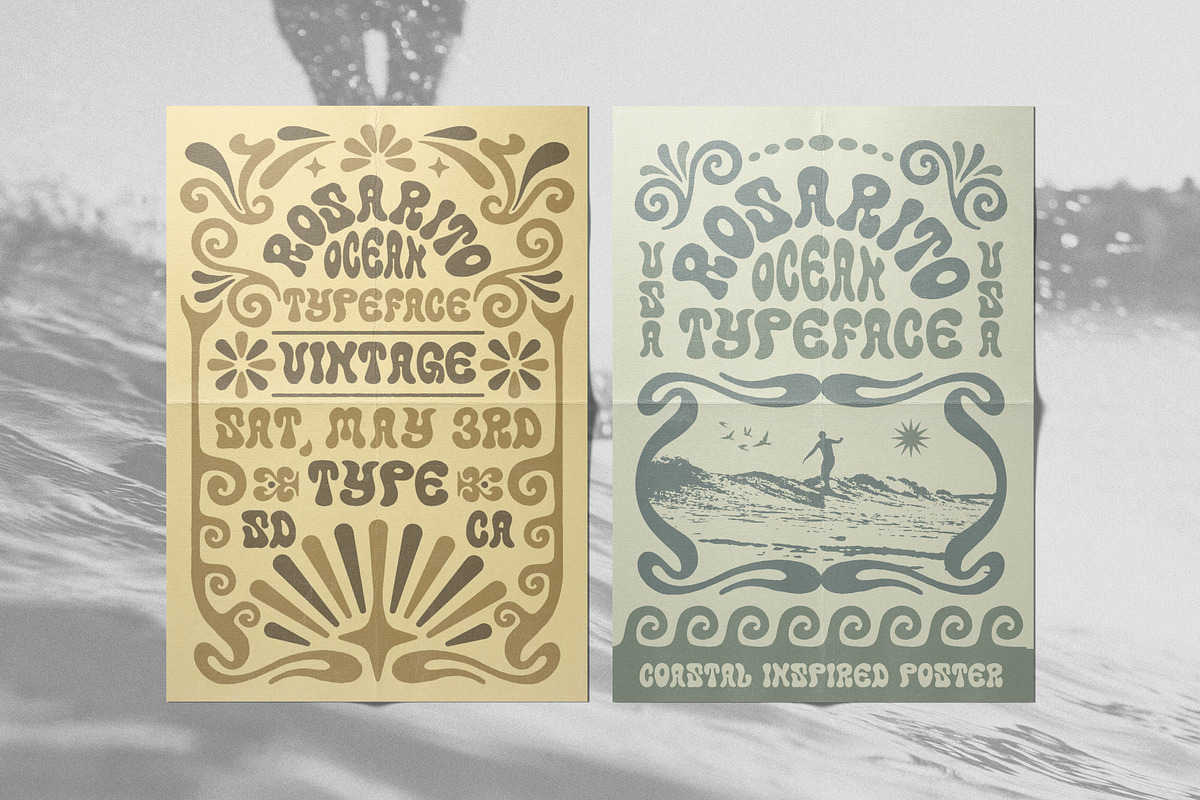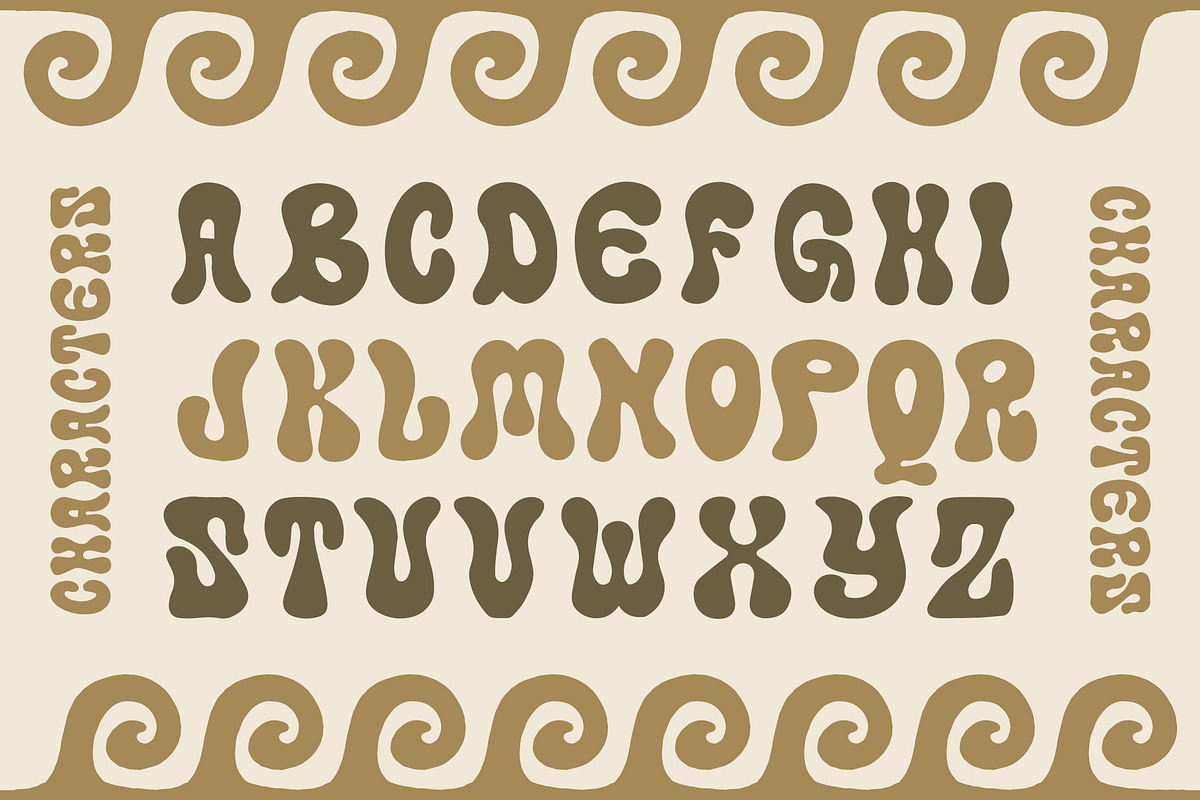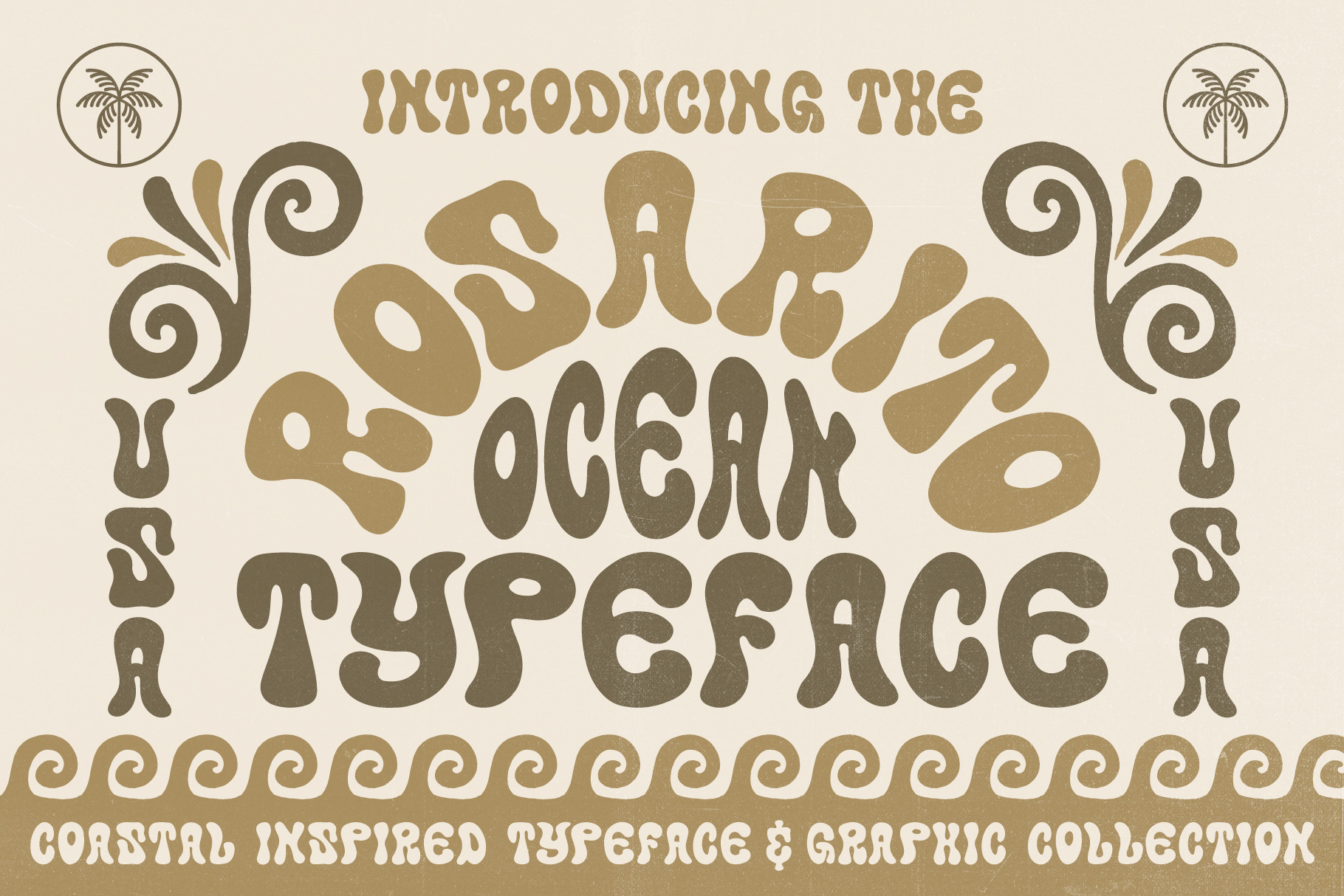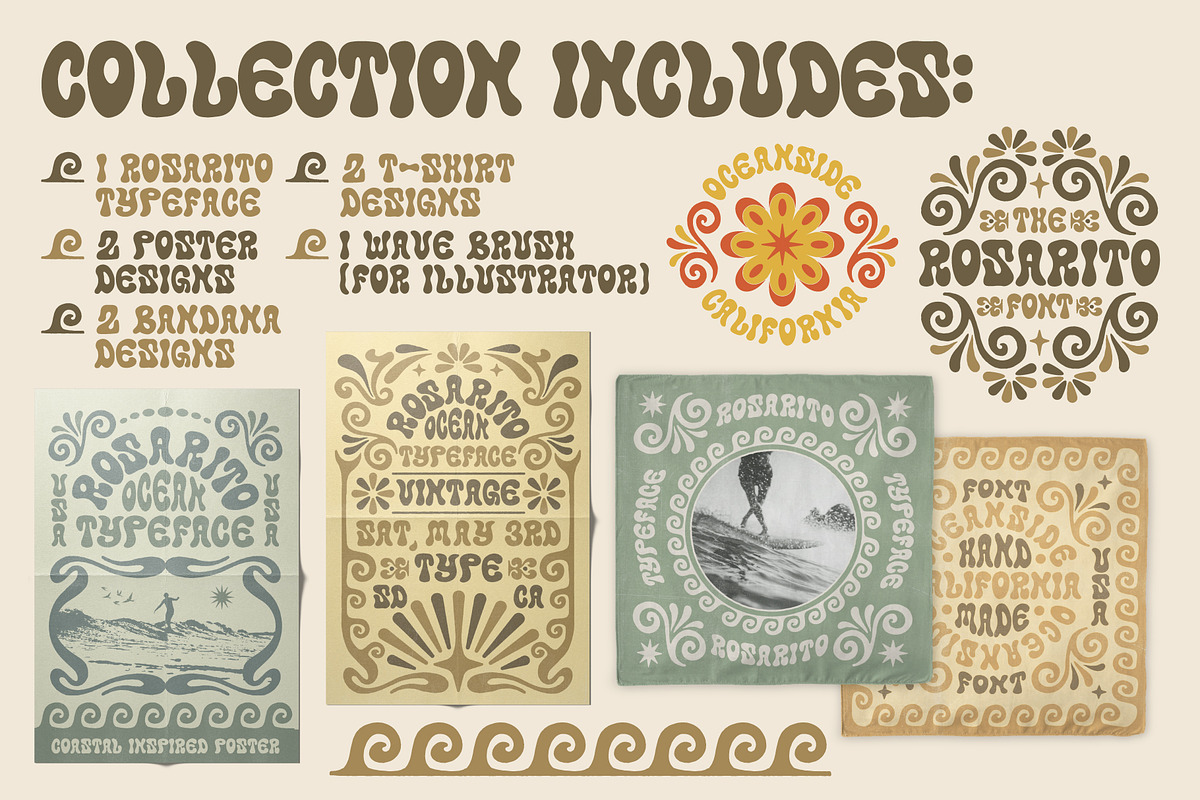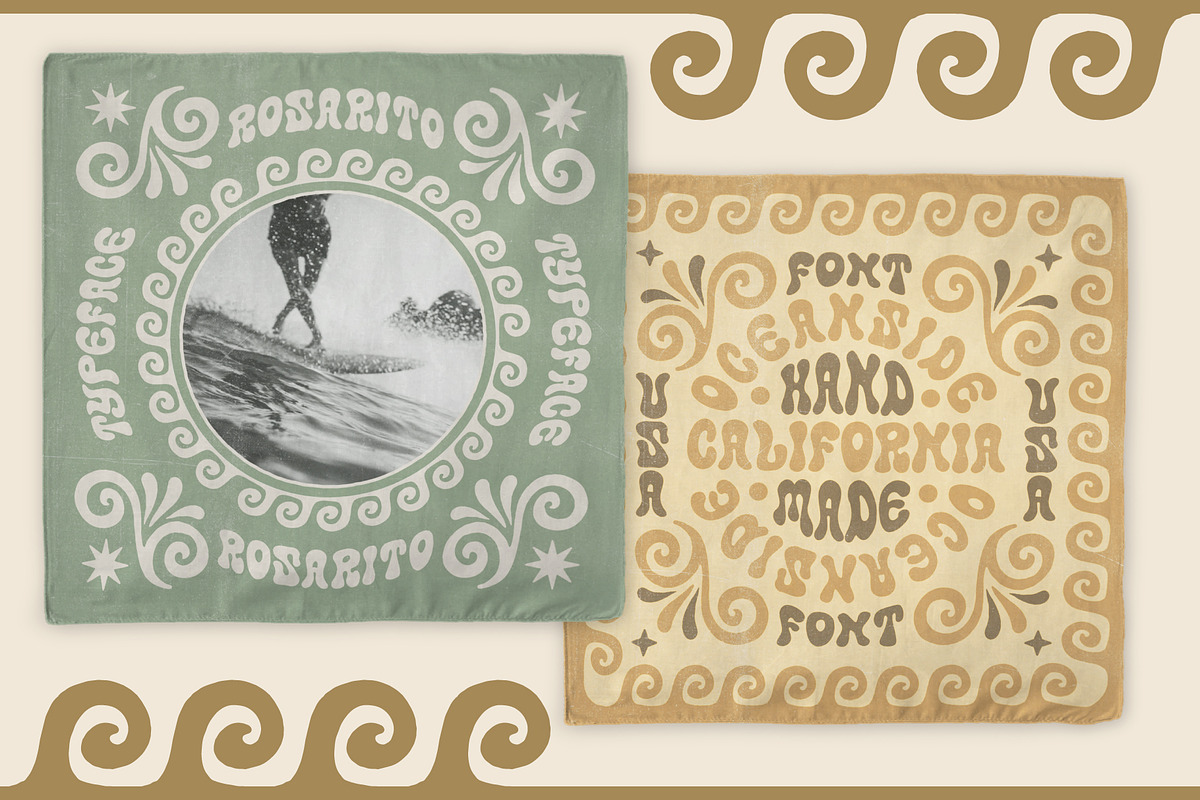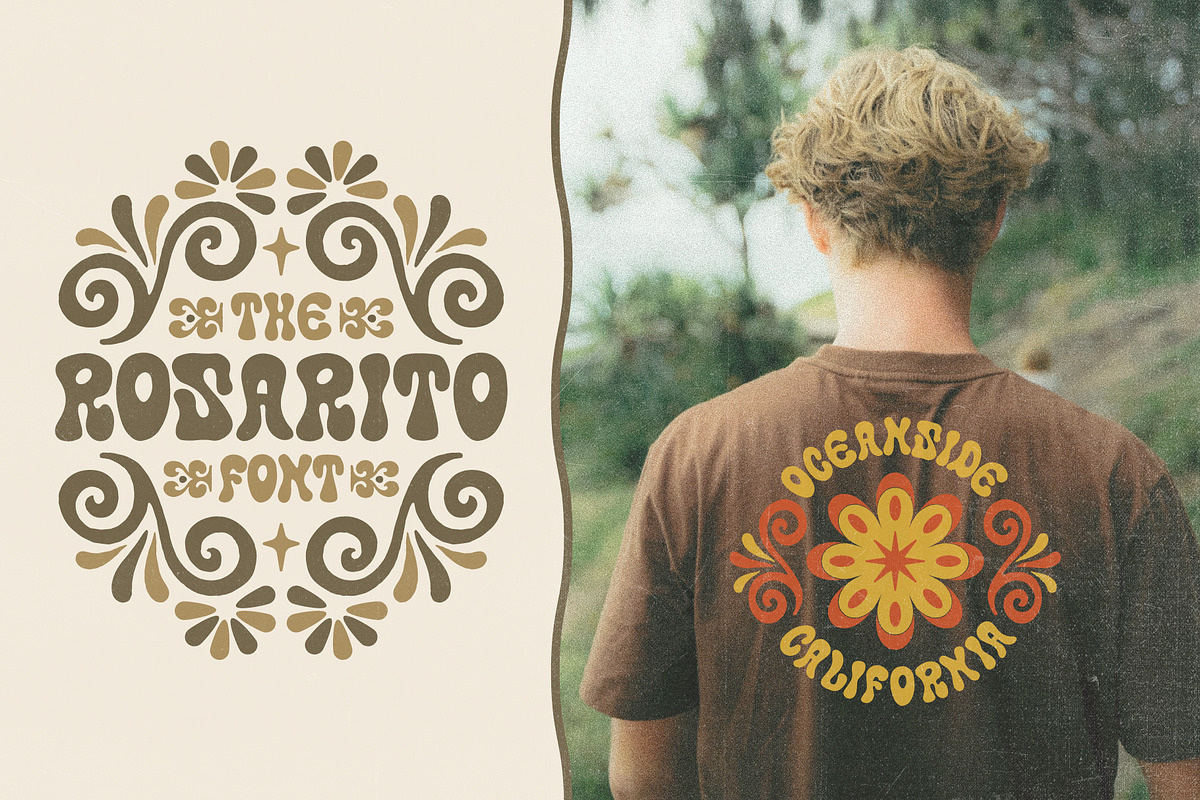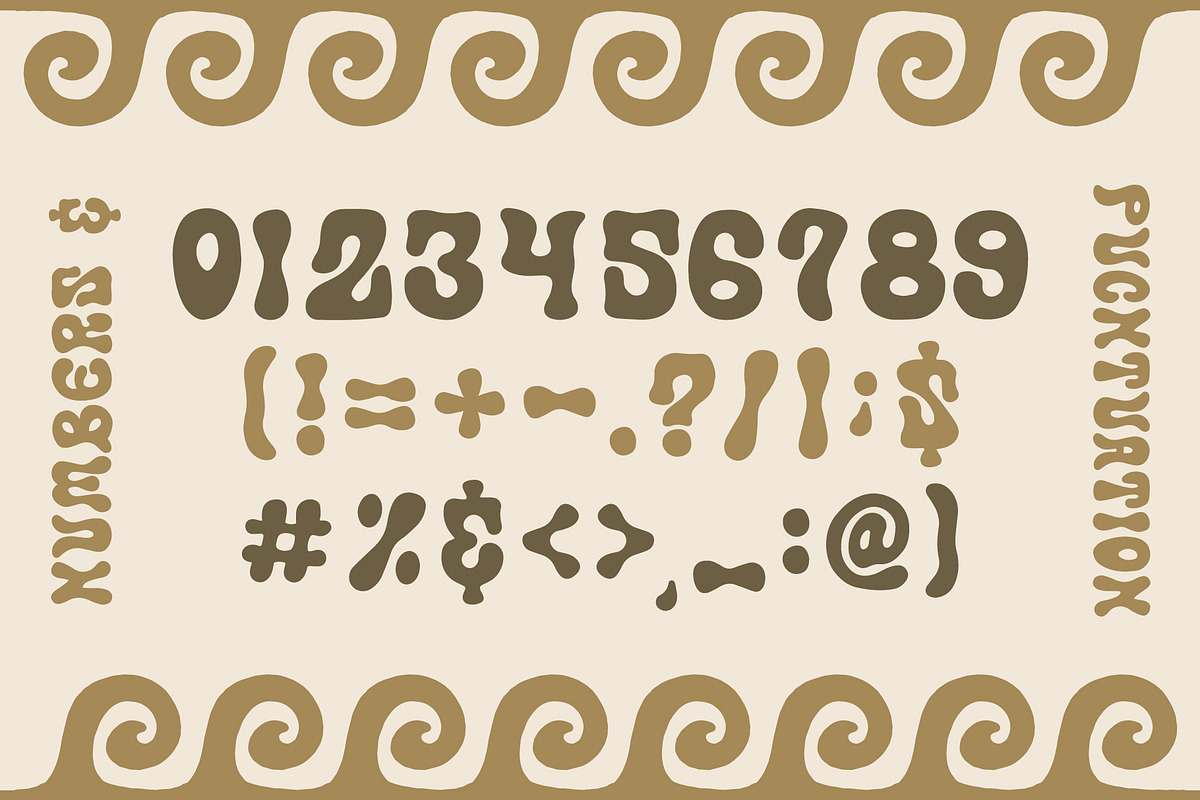
Rosarito Typeface | Coastal Font
The Rosarito typeface is a fully hand drawn typeface inspired by a blend of the beaches of Baja Mexico as well as psychedelic poster design. This font also includes a design collection that comes with 2 poster designs, 2 bandana designs, 2 T-Shirt Graphics, and 1 wave pattern brush (ai compatible). (All graphic elements & templates are adobe illustrator files)